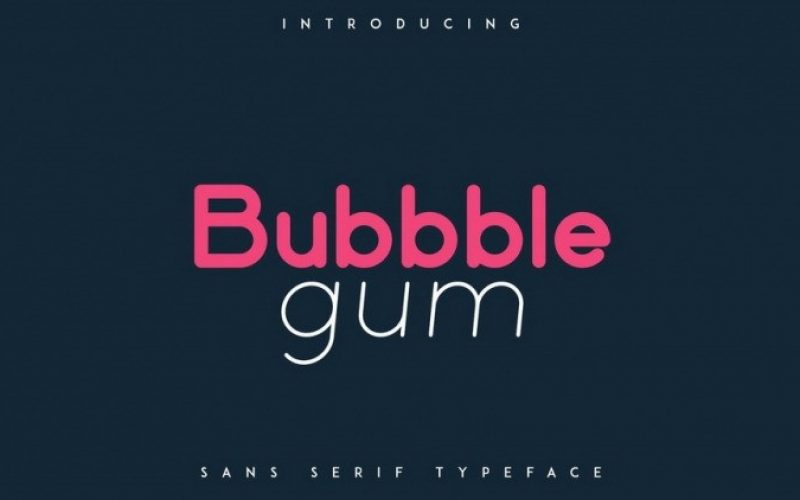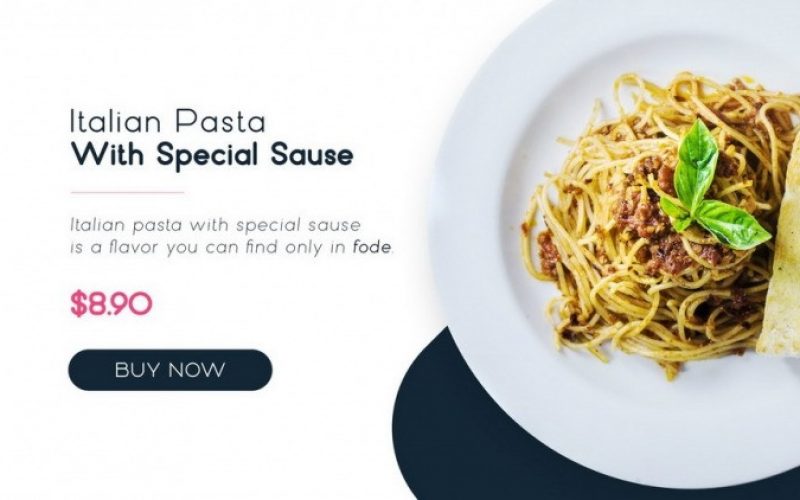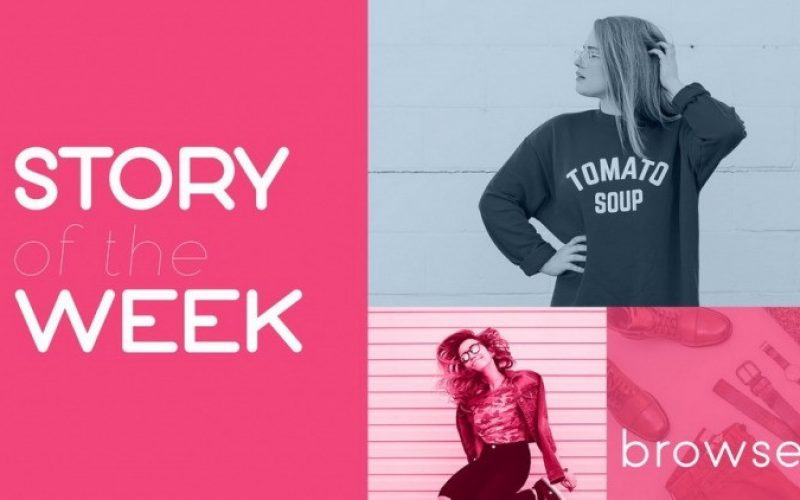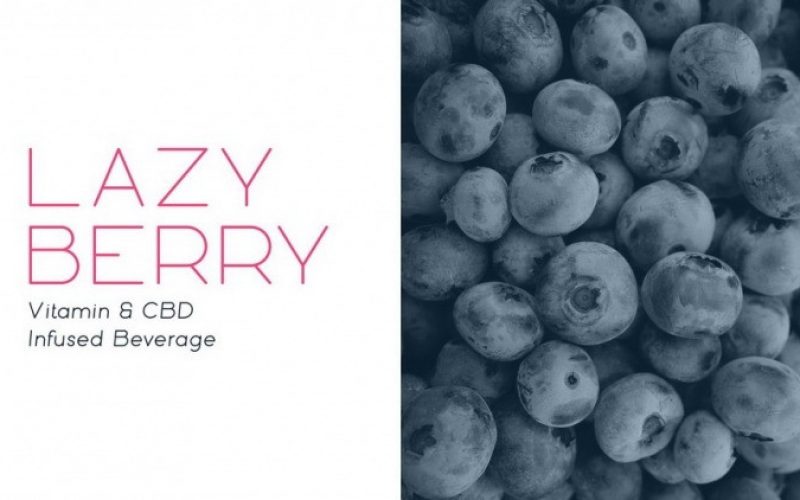
Bubble Gum Sans Serif Font
Bubbble Gum is modern, rounded typeface with 10 fonts from Hairline to Black with Italic and multilingual support. It’s a very versatile font that works great in large and small sizes.
Bubbble Gum is perfect for branding projects, home-ware designs, product packaging, magazine headers – or simply as a stylish text overlay to any background image.